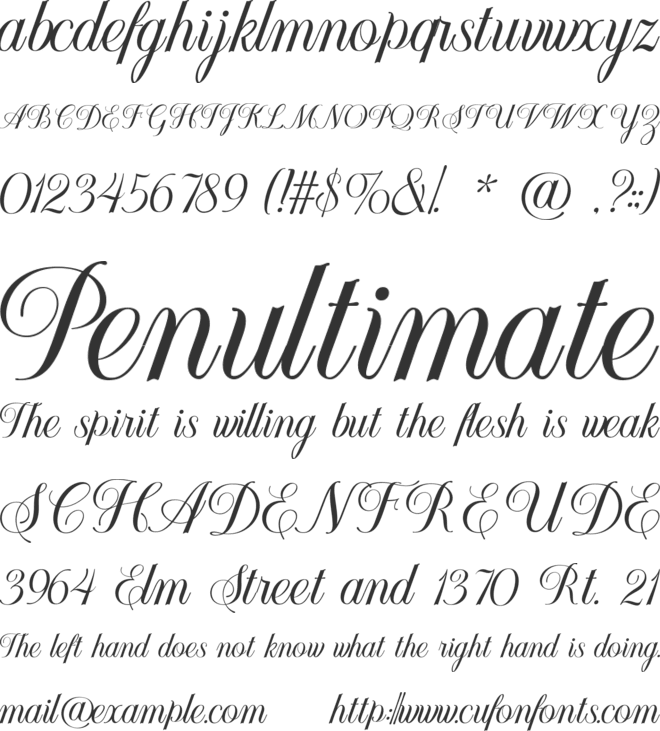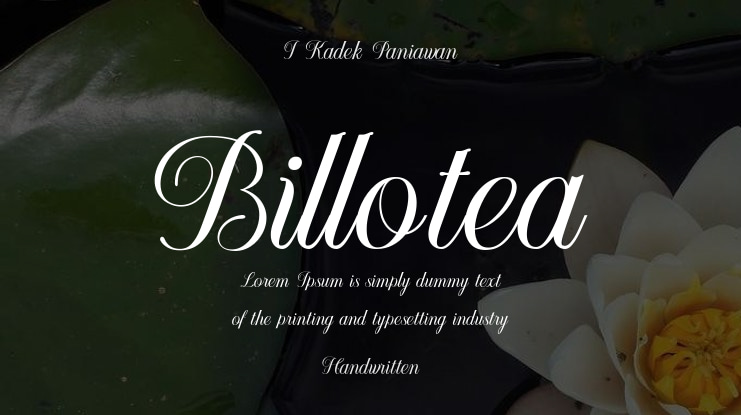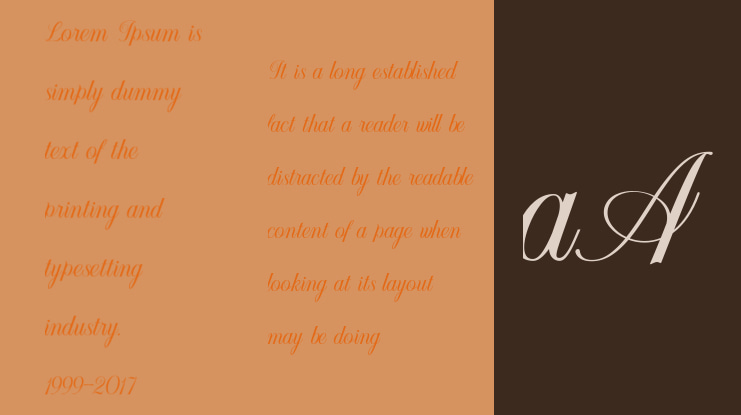
Billotea Font
Billotea Typeface: An Elegant Dance of Calligraphy and Nature
Introducing Billotea Typeface, a masterpiece of modern script that blends the grace of classic calligraphy with the allure of stunning natural ornaments. Designed by Alit Design Studio, Billotea is more than just a font; it is a work of art crafted to bring luxury and organic beauty into your every design.